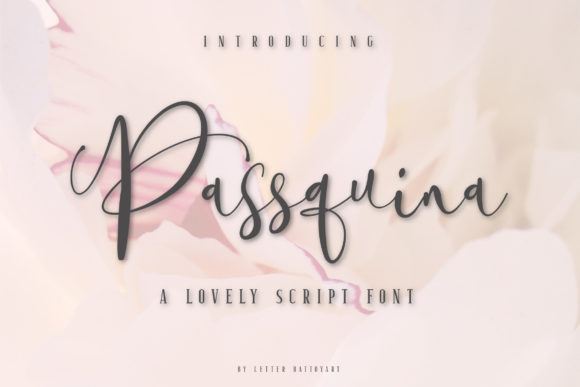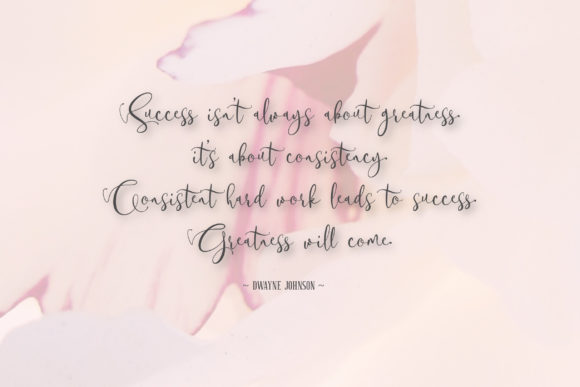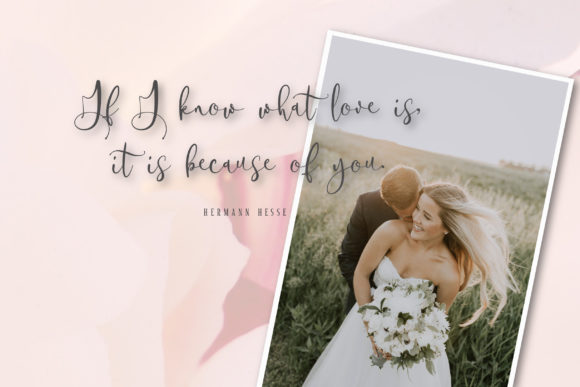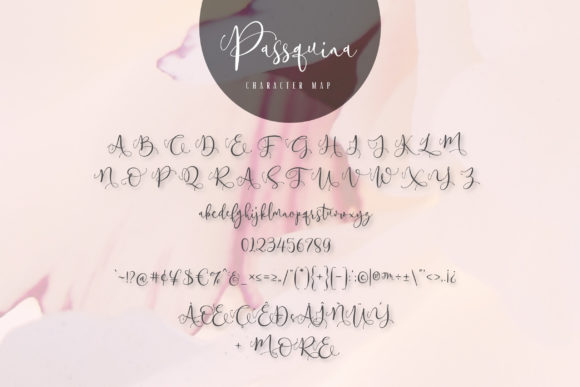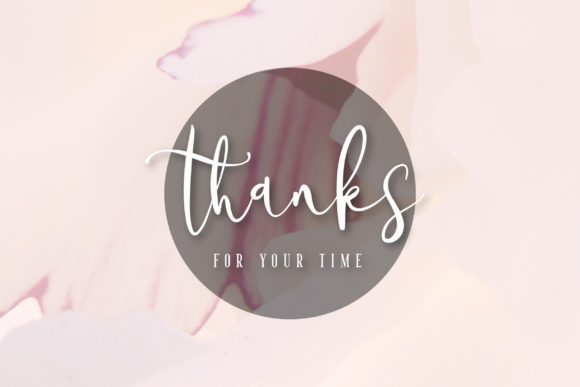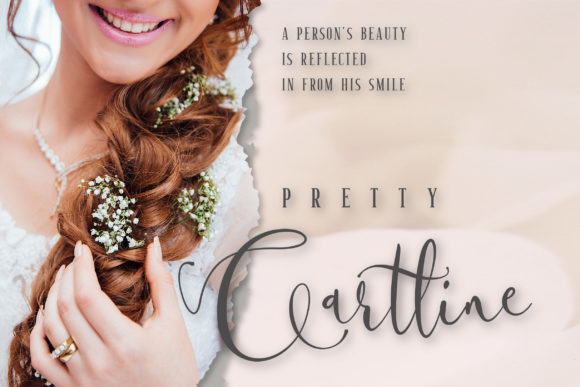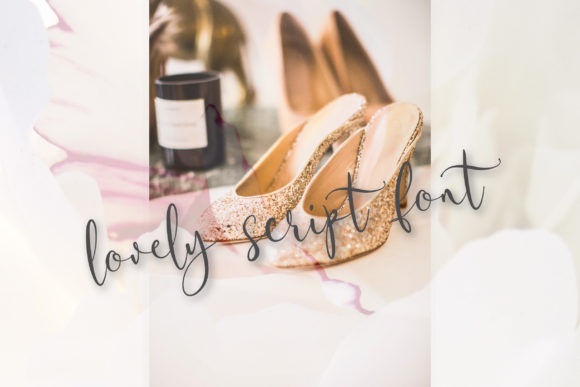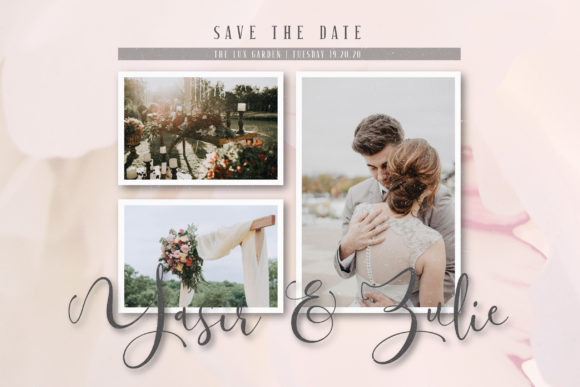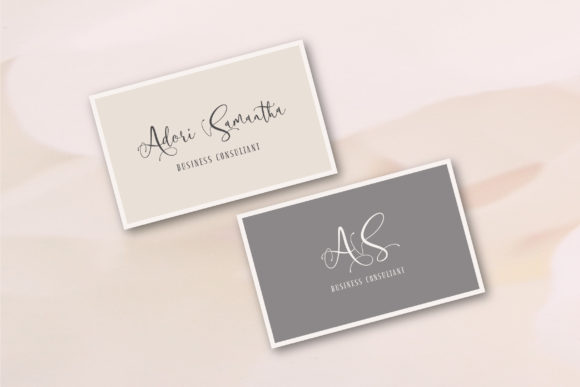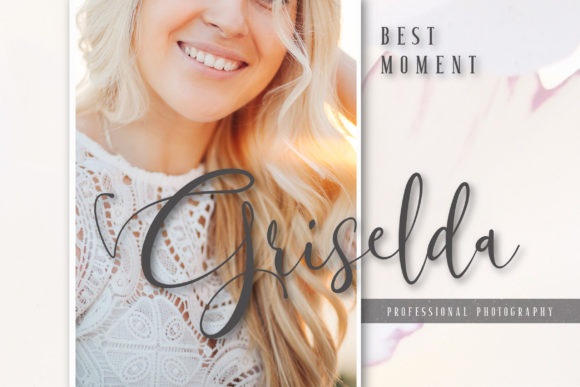
HomeScript FontsPassquina Font Script Fonts Passquina Font FacebookXPinterestWhatsApp Passquina Font Poster 2 Passquina Font Poster 3 Passquina Font Poster 4 Passquina Font Poster 5 Passquina Font Poster 6 Passquina Font Poster 7 Passquina Font Poster 8 Passquina Font Poster 9 Passquina Font Poster 10 Passquina Font Poster 11 Passquina Font Poster 12 Passquina Font Poster 13 About Passquina Font Passquina is a beautiful and cool script with a contemporary look. Get inspired by its modern feel. DOWNLOAD ON CREATIVE FABRICAThis font is sold and delivered by Creative Fabrica. Font Canyon may earn a commission if you buy through this link. People also explored Rasttelina Font Creperie Cafe Font Qossta Font Monaveen Luxia Font Brushella Font Stenley Signature Font Bumela Font Fantasy Script 5 Font Minari Garden Duo Font 320 0 TagsPassquina Font Previous articleChristmas Holiday FontNext articleColintha Font LEAVE A REPLY Cancel reply Comment: Please enter your comment! Name:* Please enter your name here Email:* You have entered an incorrect email address! Please enter your email address here Website: Save my name, email, and website in this browser for the next time I comment. Personal Use Free Covelia Personal Use Free Read more about this font Urkelian Personal Use Free Read more about this font Stigma Font Personal Use Free Read more about this font Fifteenth Century Personal Use Free Read more about this font BLOG The 10 Best Handwriting Fonts to Add Personality to Your Designs 10 of the Best Handwriting Fonts for Adding Personality to Your Designs There will undoubtedly be no other better choice than handwriting fonts to give... How to Cut Any Font on Cricut: Convert a Font to SVG (Free) Top 7 Google Fonts Alternatives for Faster and Privacy-Friendly Web Design (2025) Modern Sans-Serif Fonts That Brands Love in 2025